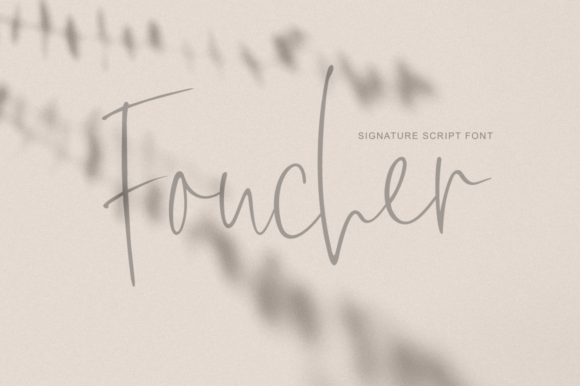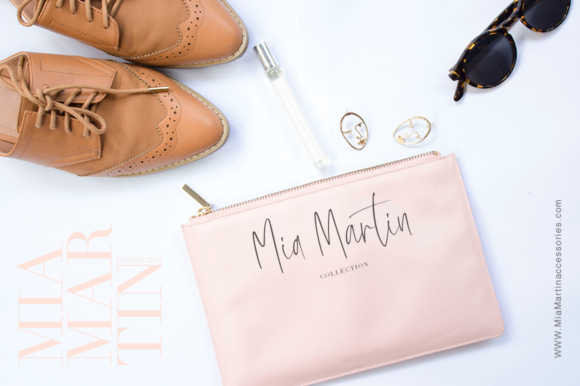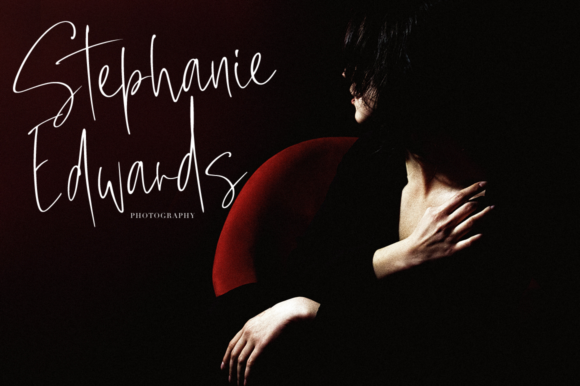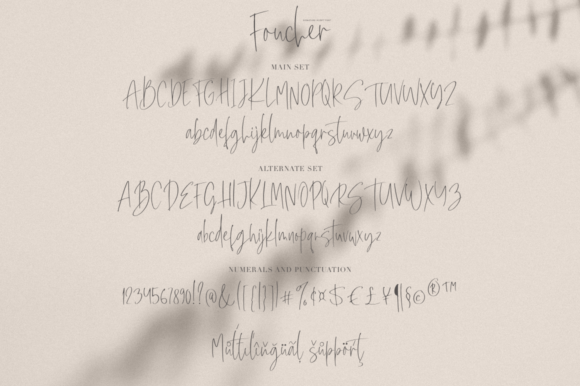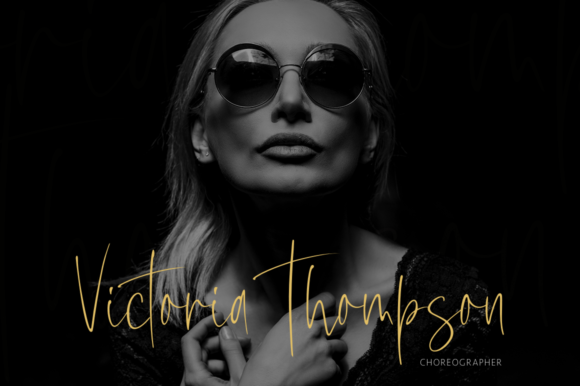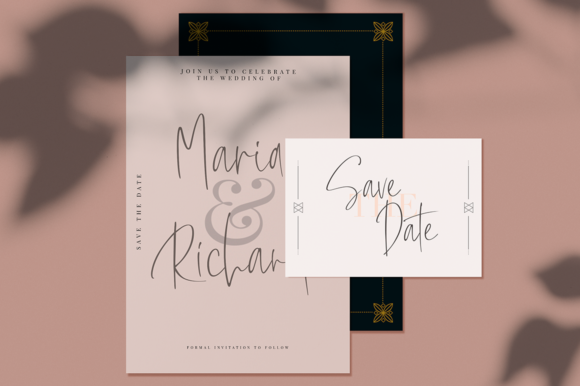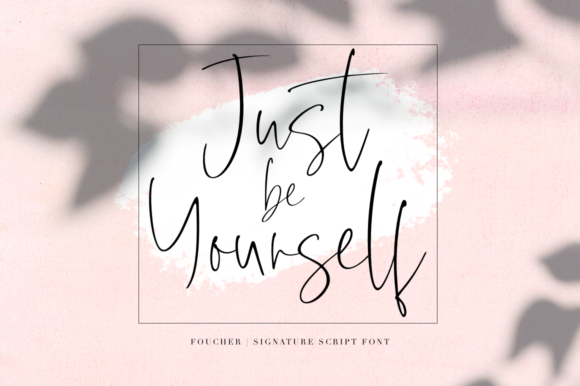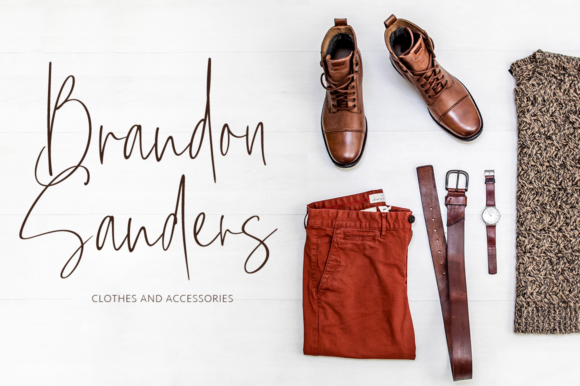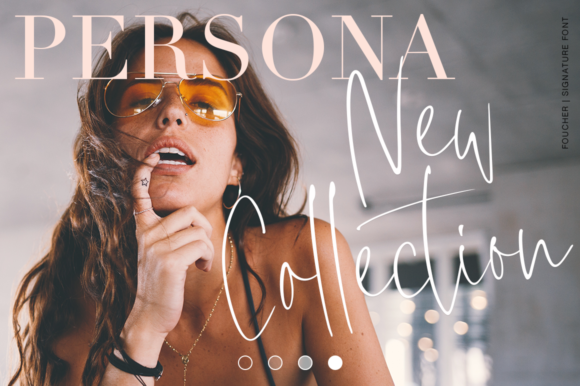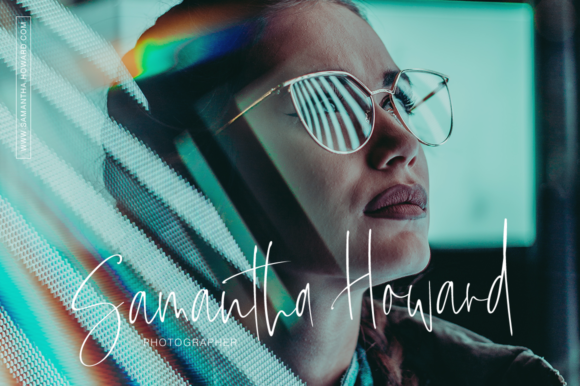
HomeScript FontsFoucher Font Script Fonts Foucher Font FacebookXPinterestWhatsApp Foucher Font Poster 2 Foucher Font Poster 3 Foucher Font Poster 4 Foucher Font Poster 5 Foucher Font Poster 6 Foucher Font Poster 7 Foucher Font Poster 8 Foucher Font Poster 9 Foucher Font Poster 10 Foucher Font Poster 11 Foucher Font Poster 12 About Foucher Font Foucher is a thin and bouncy script that’s perfect for adding a personal touch to any modern design project! DOWNLOAD ON CREATIVE FABRICAThis font is sold and delivered by Creative Fabrica. Font Canyon may earn a commission if you buy through this link. People also explored Olive Font Fat Santa Font Blue Font Caligea Font Black Land Font Hellowita Font Raccoon Coat JNL Font Beertop Font Christmas Tree Font 651 0 TagsFoucher Font Previous articleAugusta FontNext articleFall Ember Font LEAVE A REPLY Cancel reply Comment: Please enter your comment! Name:* Please enter your name here Email:* You have entered an incorrect email address! Please enter your email address here Website: Save my name, email, and website in this browser for the next time I comment. Personal Use Free BD AsciiMax Personal Use Free Read more about this font Angista Script Personal Use Free Read more about this font Sunshine Tropical Font Personal Use Free Read more about this font Merak Personal Use Free Read more about this font BLOG Top 10 Handwritten Fonts That Elevate Your Designs Top 10 Handwritten Fonts That Will Elevate Your Designs Handwritten fonts bring a warm, personal touch to every creative project. Whether you're designing logos, invitations,... Best Fonts for T-Shirt Design – Top 2025 Picks How to Install and Use Fonts on Windows, macOS, and Web Projects Modern Sans-Serif Fonts That Brands Love in 2025